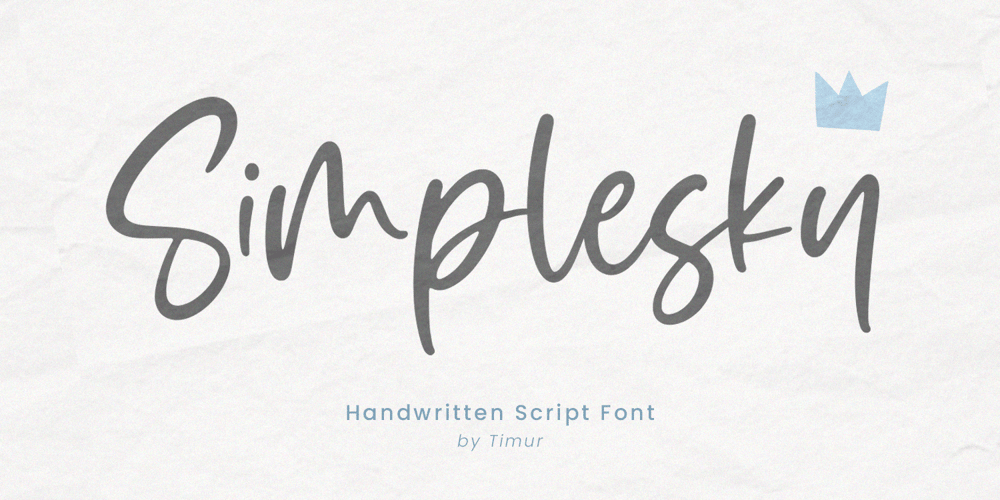
Simplesky Font Family was designed by Wara Sigit Tri Pamungkas and published by Timurtype. Simplesky contains 1 styles and family package options. Introducing by Timur typeProudly Present, Simplesky A Handwritten Script Font, which was created with great care and specially created for you ✨Simplesky is perfect for product packaging, branding project, megazine, social media, wedding, or just used to express words above the background.Simplesky also multilingual support.Embelish your designs with our original fonts. Enjoy the font 😉 Thank you!